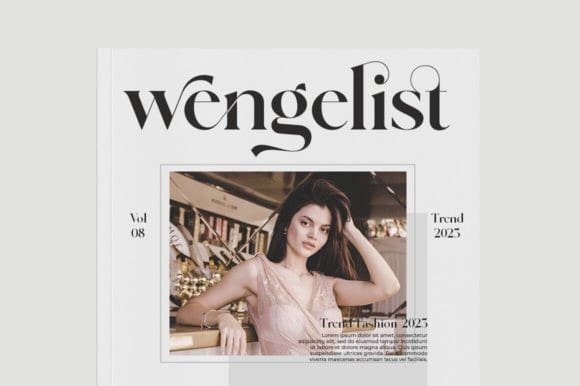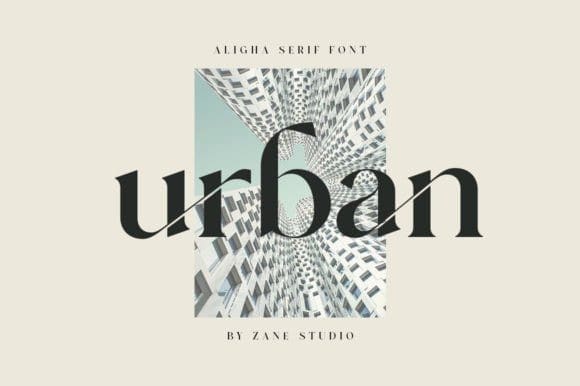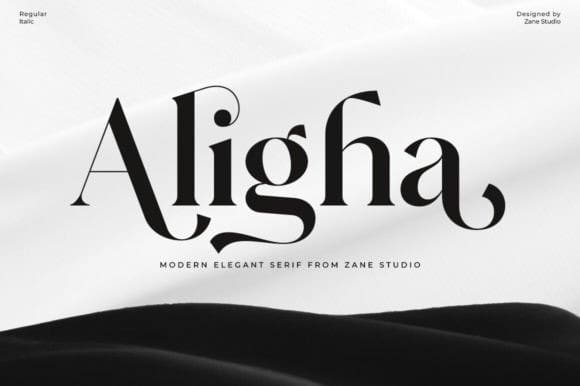
Aligha Font
Aligha Font – new Elegant Modern Serif! is a modern, elegant, and classy serif typeface, best suited for displaying titles, logos, branding, magazines, product packaging, and invitations. It comes with clean lines and smooth curves that add an extra touch of class to any project.